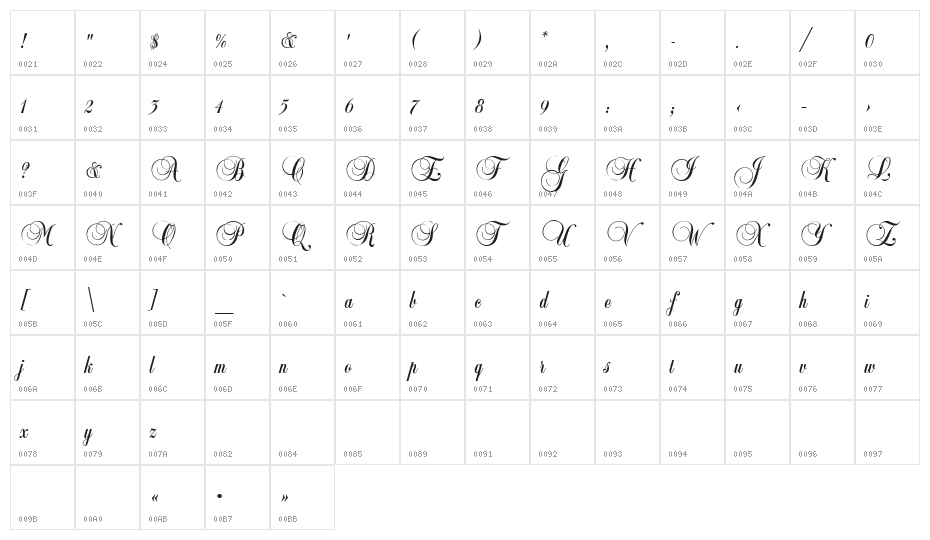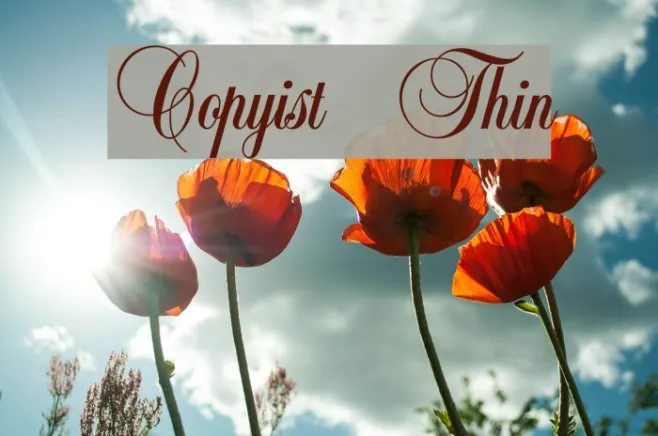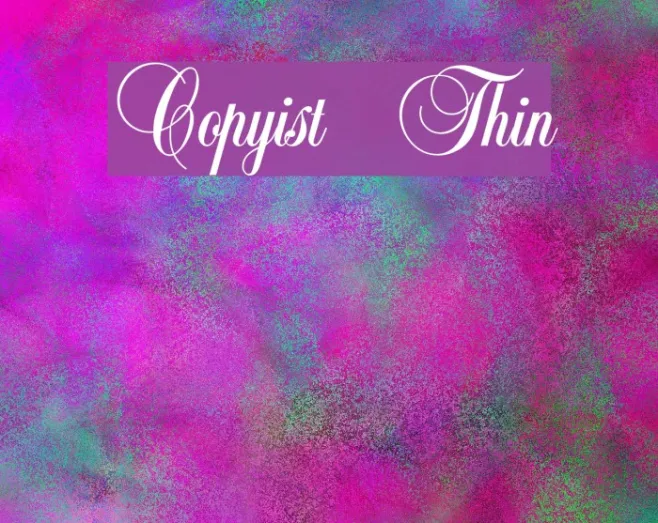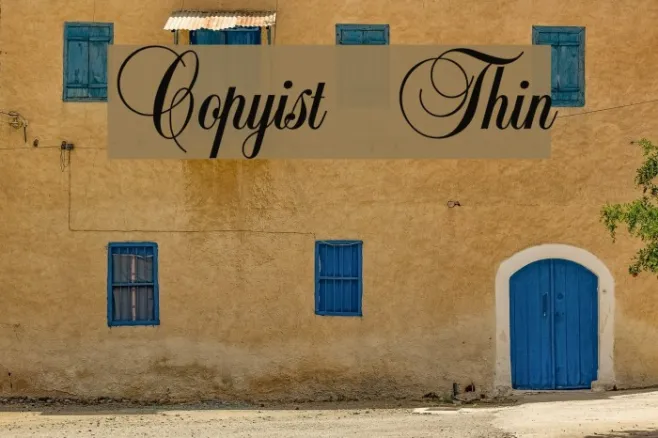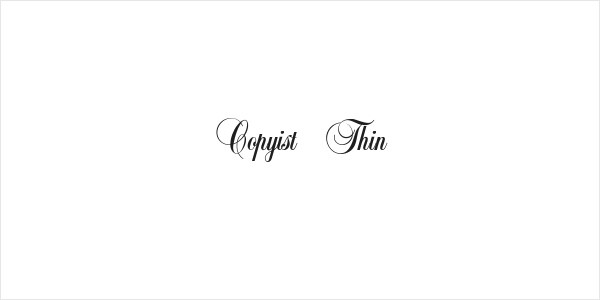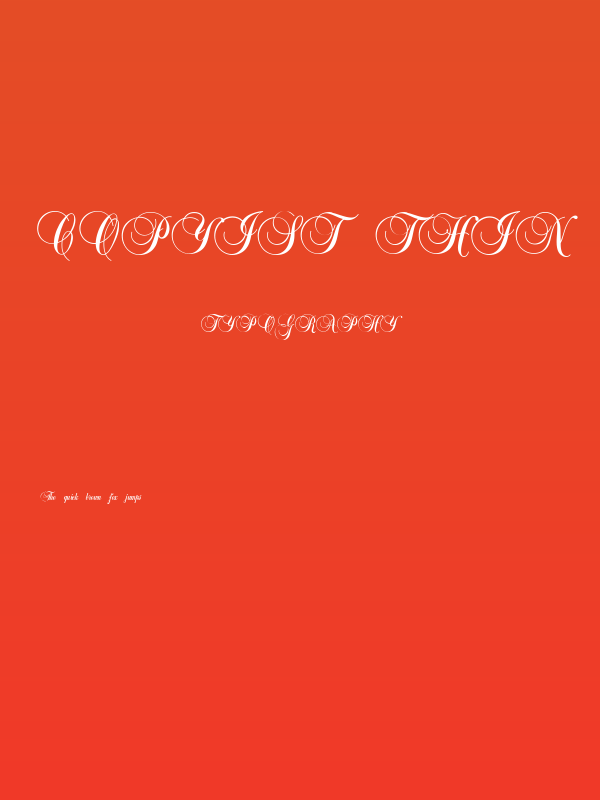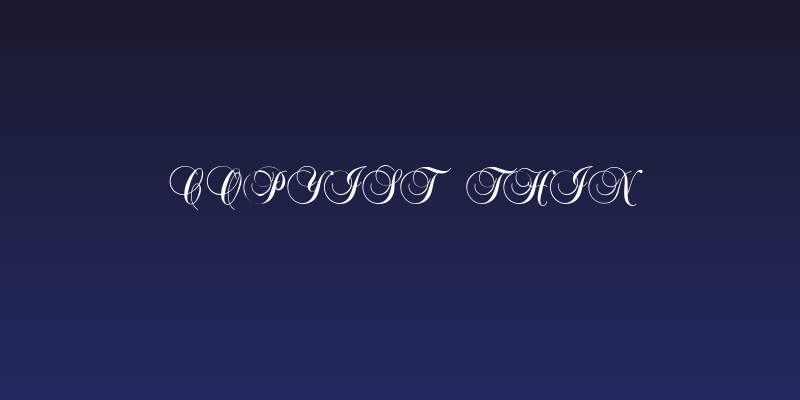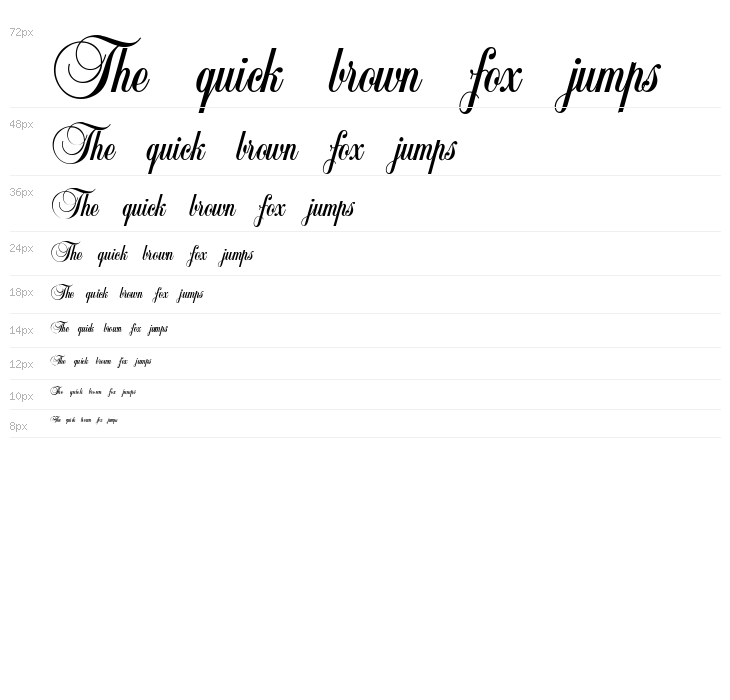
Copyist Thin Font
Copyist Thin Description
This elegant script font features a sophisticated and flowing design, characterized by its thin, delicate strokes and intricate loops. The uppercase letters are ornate, with elaborate swirls that add a touch of luxury and refinement. The lowercase letters maintain a consistent style, offering a smooth and graceful appearance. The numerals and special characters are designed to complement the overall aesthetic, providing a cohesive look. This font exudes a sense of elegance and is perfect for projects that require a touch of class and sophistication.
| Proposed Projects | Ideal for wedding invitations, luxury branding, elegant stationery, and high-end product packaging. |